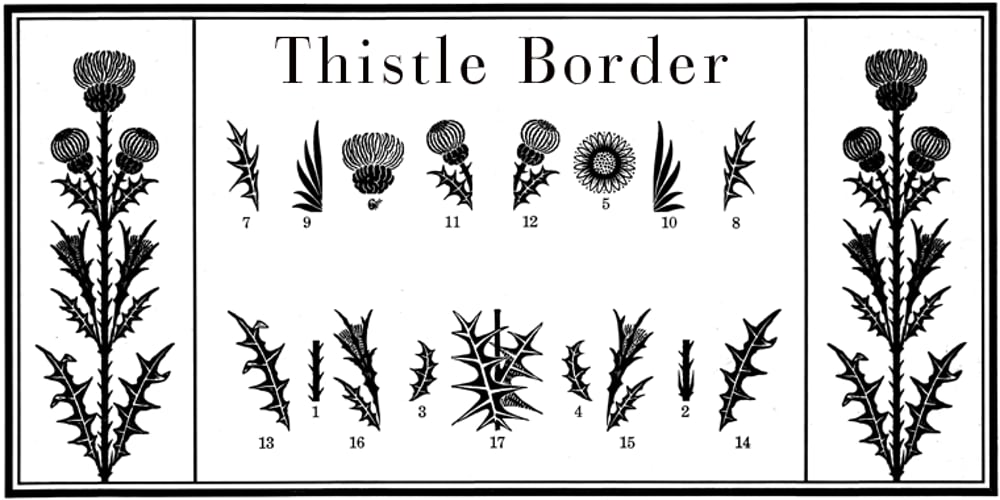
Thistle Borders Font Family was designed by Gert Wiescher and published by Wiescher Design. Thistle Borders contains 1 styles and family package options. Thistle Borders are yet another “trouvaille”. Great borders made out of thistles, teasles and flowers from the meadows of Victorian times by Gert Wiescher